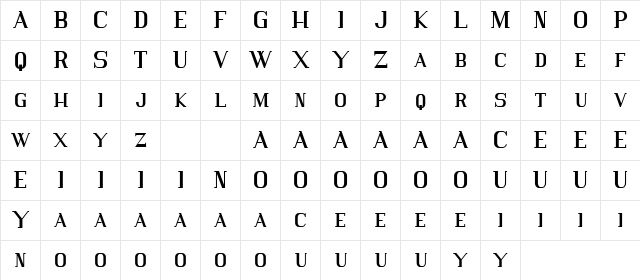
Vlorens Flower DEMO Regular
| Foundry | edric studio |
| Designer | Aghnia + Yasri |
Design Context for Vlorens Flower DEMO Typeface
Vlorens Flower DEMO takes a measured approach to typography — its balanced proportions and neutral character make it a reliable workhorse for both digital and print work.